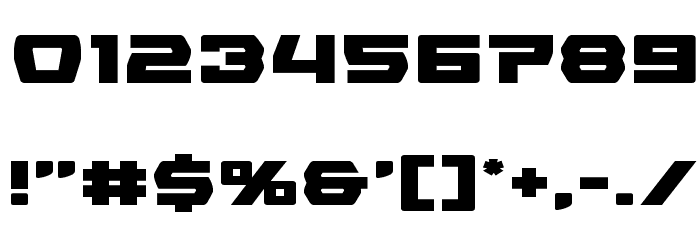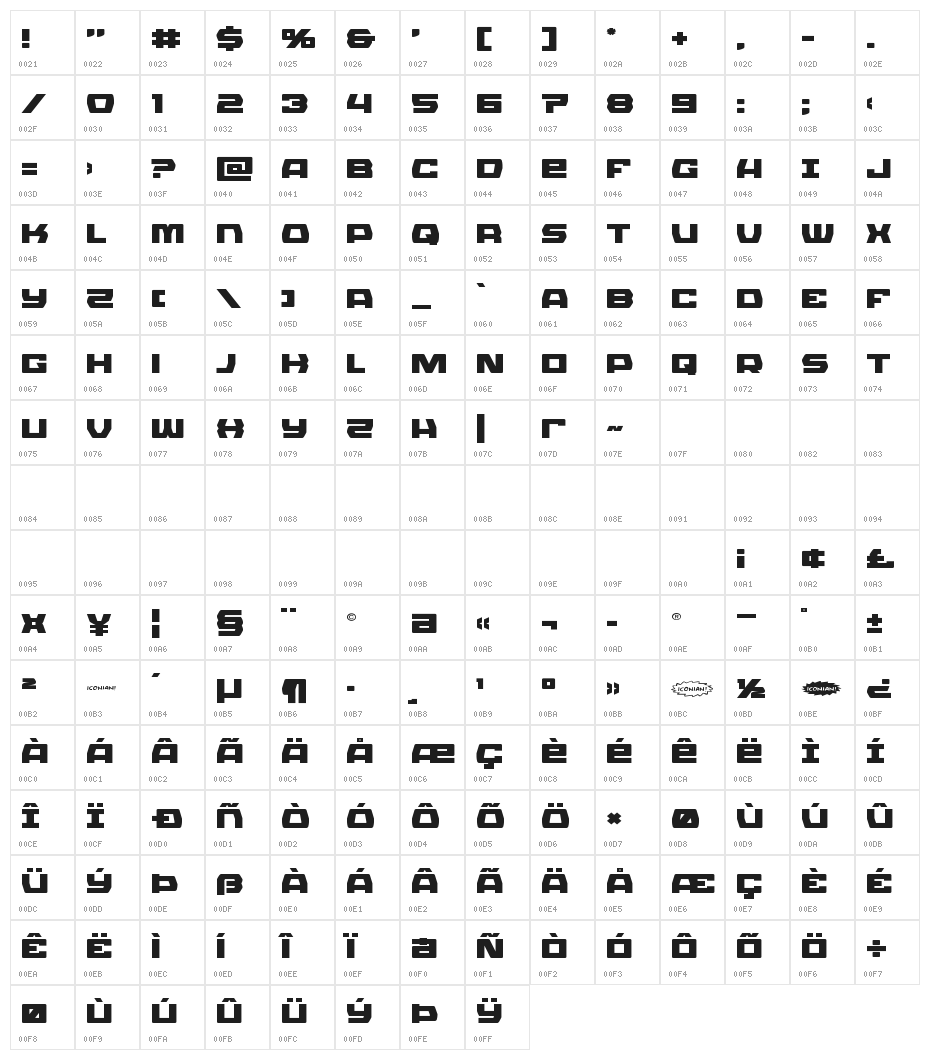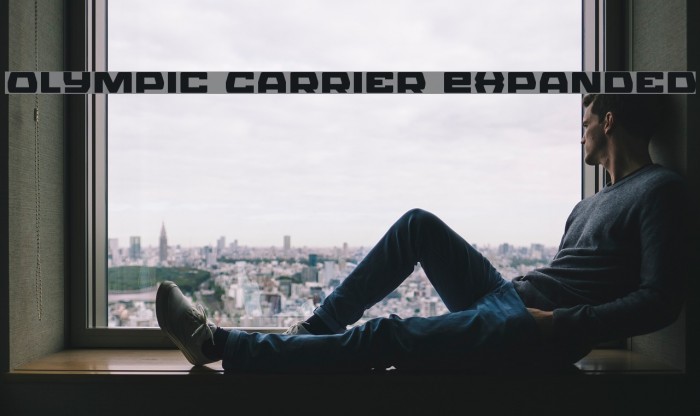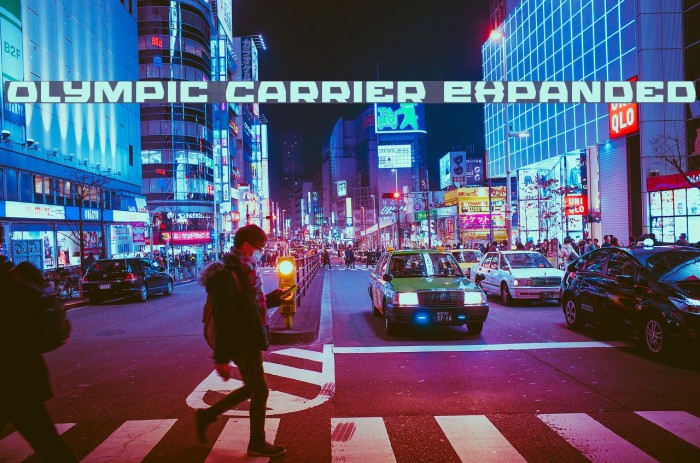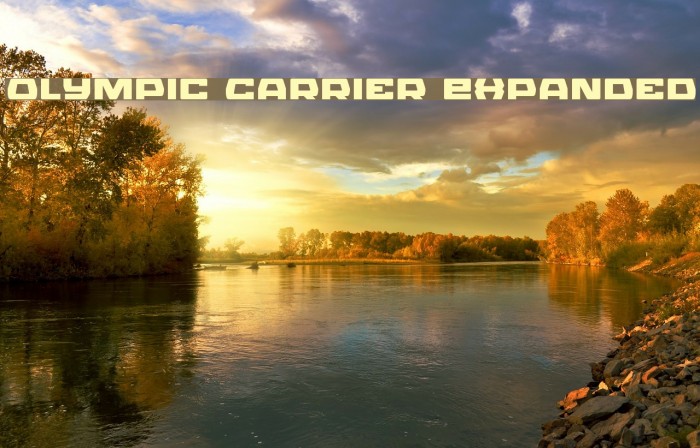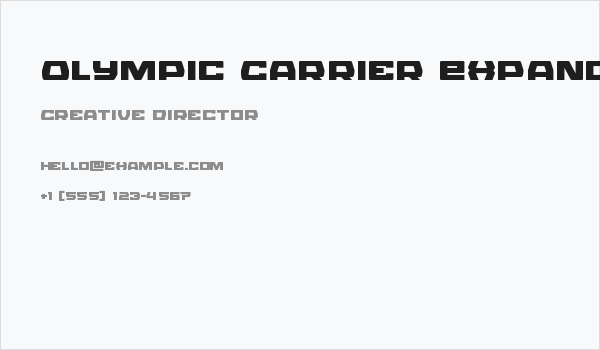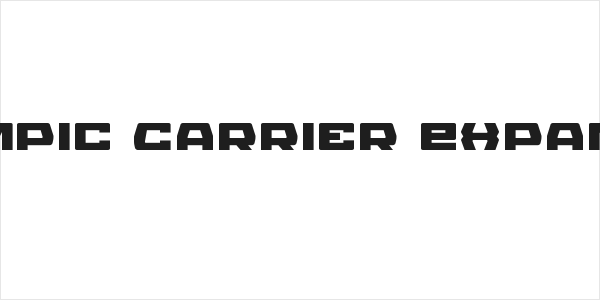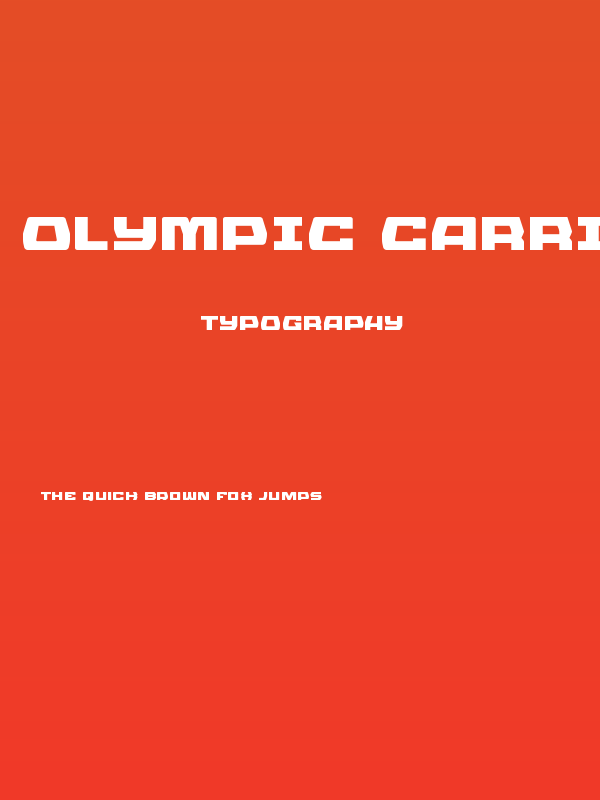
Olympic Carrier Expanded Font
Olympic Carrier Expanded Description
This font features a bold, geometric design with a futuristic and industrial feel. The characters are constructed with thick, block-like shapes that convey strength and stability. The angular cuts and sharp edges give it a dynamic and modern appearance, making it suitable for attention-grabbing headlines. The uniformity in character height and width contributes to a cohesive and structured look, while the expanded width enhances its presence. The font's design is reminiscent of digital or technological themes, making it ideal for projects that require a modern and robust aesthetic.